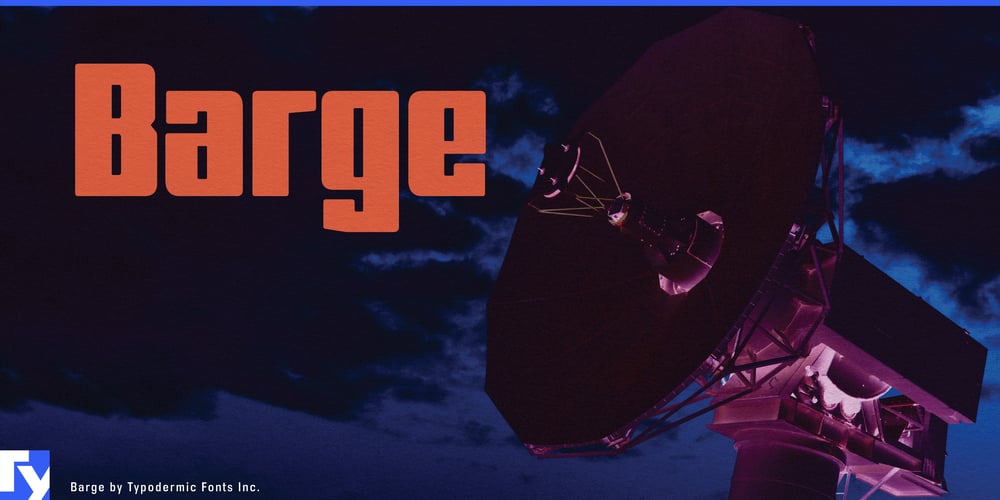
Barge Font Family was designed by Ray Larabie and published by Typodermic. Barge contains 1 styles and family package options. Attention, titans of industry and architects of greatness! Prepare to witness the typographic equivalent of a skyscraper—Barge has docked in the harbor of design, and it’s here to dominate the skyline of your projects.Barge’s chamfered strokes don’t just fill space—they command it, creating a visual rhythm as steady and unstoppable as a freight train. Each letter stands like a sentinel, guarding the sanctity of your message with unwavering resolve. Need to project authority? Barge doesn’t whisper, it declares. It’s the typographic equivalent of a firm handshake and a steely gaze. Institutions craving an aura of rock-solid dependability, take note—Barge is your new cornerstone.But don’t mistake Barge for a one-trick pony. This versatile powerhouse speaks fluently in a plethora of Latin-based languages. From the boardrooms of Stockholm to the boulevards of Buenos Aires, Barge ensures your message stands tall, proud, and unmistakable. Designers, imagine the possibilities. Headlines that could withstand a category five hurricane. Logos that look like they’ve been carved into the side of Mount Rushmore. With Barge, you’re not just setting type—you’re laying the foundation for visual empires.So, if you’re tired of fonts that merely suggest authority and yearn for one that exudes it from every pixel, it’s time to get on board with Barge. Because in the high seas of design, Barge isn’t just a vessel—it’s the entire fleet.